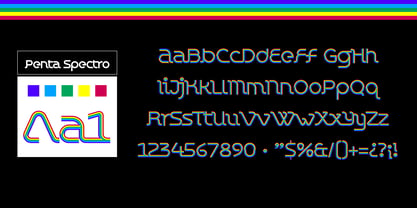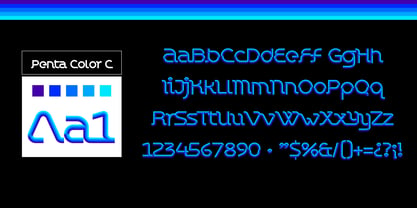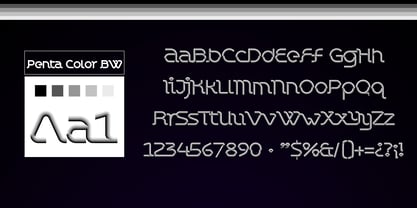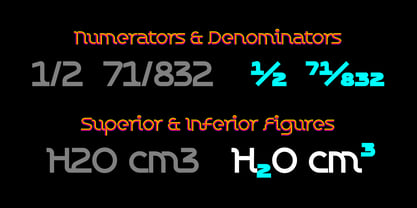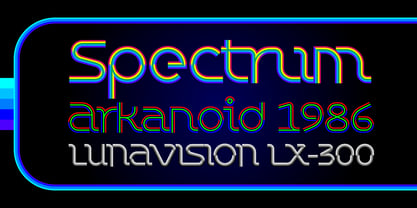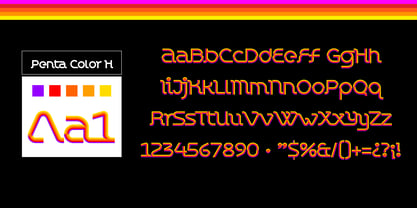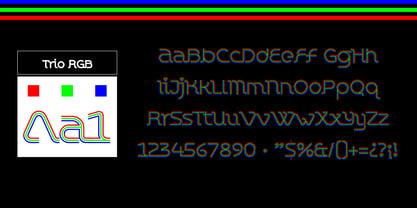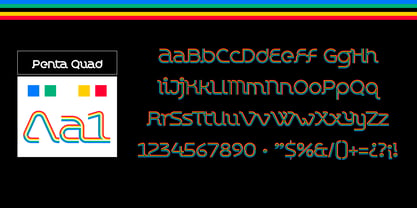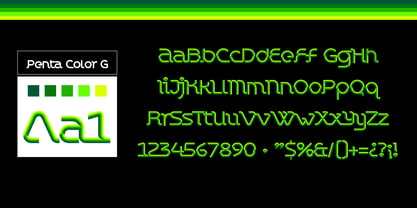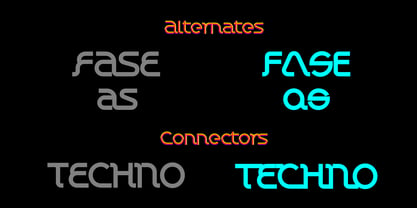
Chromaliner
by JVB Fonts
The Chromaliner Font Family was designed by John Vargas Beltrán and published by JVB Fonts. Chromaliner contains 13 styles and family package options. More about this family
Chromaliner is a geometric display type family inspired by the bold visual culture of the 1970s and 1980s. It seamlessly blends retro aesthetics with modern digital precision, resulting in a versatile typographic system ideal for expressive and contemporary design. The family comprises 13 styles, including 8 FontColor styles that explore layered chromatic compositions, alongside clean monochrome versions. This structure empowers designers to transition effortlessly from functional typography to decorative typographic artwork. Chromaliner is perfect for branding, logos, posters, packaging, editorial headlines, social media, and motion graphics. Its robust geometric construction, vibrant color system, and retro-inspired personality make it an excellent choice for projects that seek visual impact and a nostalgic character with a modern finish.
Designers: John Vargas Beltrán
Foundry: JVB Fonts